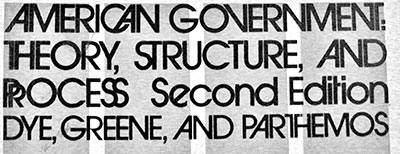
I'm looking for a font, and not only do I not know the name of it, but I don't have an example.
I've been seeing it a lot lately. It's a sans-serif, all caps. What I like so much, is that some of the characters slant into each other.
Something like the A in the attached font, but overall more "plain" maybe.
but it's been making a small comeback recently.
I thought their 'death' was more due to a particular case of copyright and the fact that they had been digitally neglected, as opposed to overuse. Clean sans never go out of vogue. 😉 😀
This is an example from 1972. I guess it looks clean in the sense of a tidy salvage yard, but it's a catastrophe without restraint (and few showed any).
And as you can see, when considered properly, it is nothing other than absolutely divine. 🙂
looks like a hand manipulated font to me.
or they changed the kerning alot to get the L under the S like that.
And as you can see, when considered properly, it is nothing other than absolutely divine. 🙂
Divine is in the eye of the beholder, I suppose, but this box really is another example of a designer who missed the point. To start, the wrong 'A' is used in "STANLEY" (most common problem with this face other then ligature overload, no one gets what the slants are for). Second, and probably the larger sin, is that no attempt was made to build an overall structure with all those uprights and angles.
I thought their 'death' was more due to a particular case of copyright and the fact that they had been digitally neglected, as opposed to overuse. Clean sans never go out of vogue. 😉 😀
From my pov, (I started studying design in the 70s, they were my high school and college days), Avant Garde was vastly overused then, like iMeowbot said it was everywhere. By the 80s designers wouldn't touch it with a 10 foot pole, it would make your work look so last decade in a hurry. That's more than likely why it was digitally neglected for a long while. Many of the type houses (typesetters, remember those?) had Avant Garde but people were not using it a whole lot since the 70s. Of course you leave something alone for 25 years and it becomes hot again. I agree clean sans never go out of style, it just makes jumps between a small handful of families over time. 😉